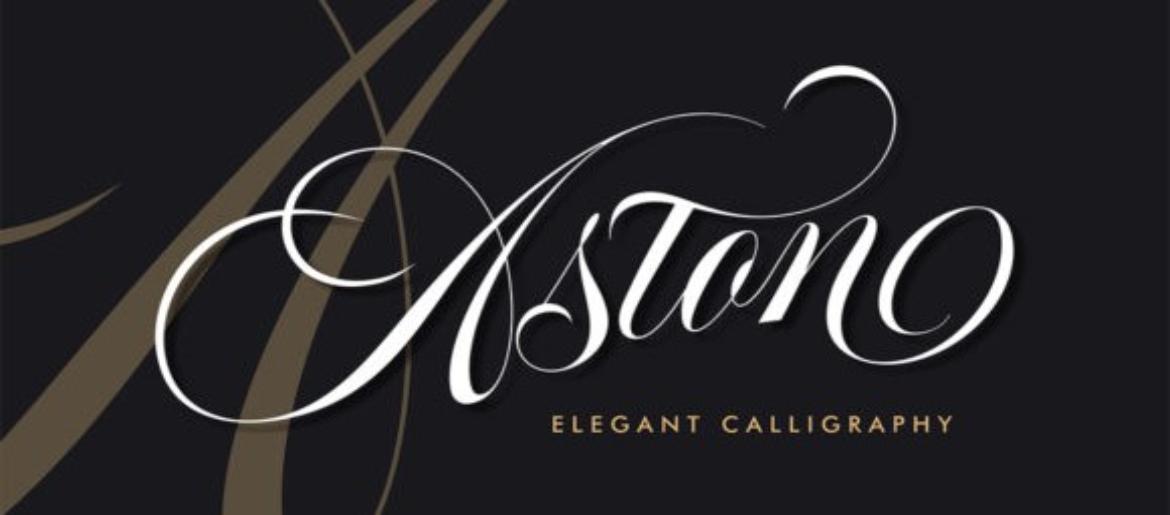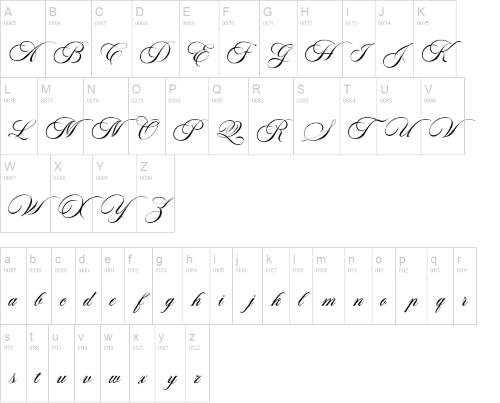
Aston Script Font
Aston Script Font is an elegant, flowing script typeface known for its smooth strokes and refined handwritten style. Its graceful curves and stylish letterforms make it ideal for wedding invitations, luxury branding, quotes, packaging, and feminine, romantic design projects. Aston Script brings sophistication, warmth, and timeless beauty to any layout.
Font Name:  Aston Script
Designer: Trf
Style: Script > Calligraphy